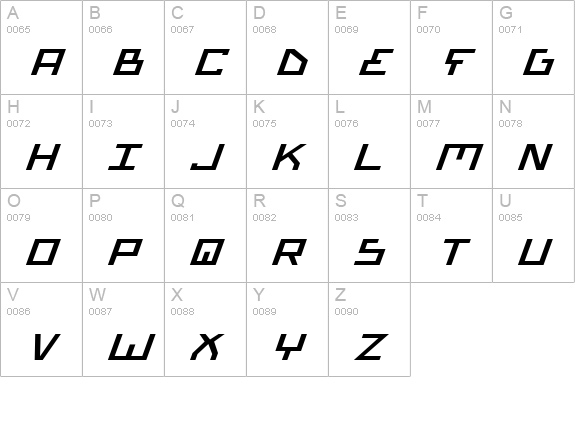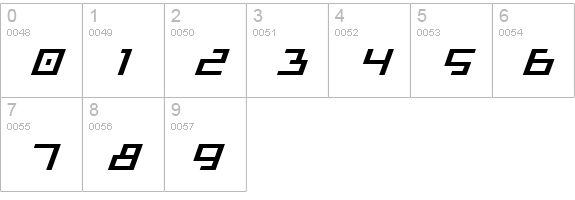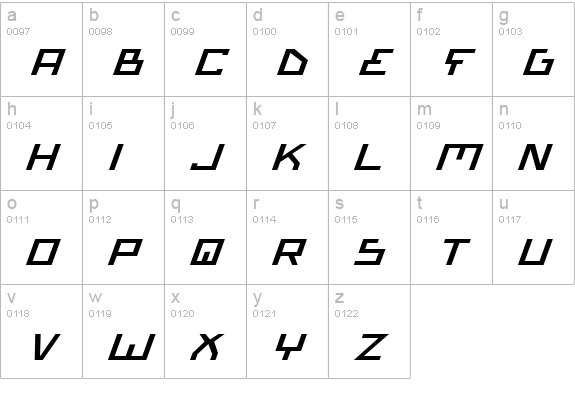
Bionic Type Expanded Italic Font Details
Bionic Type Expanded Italic is a distinctive, extended-width, italic variant in the Bionic typeface family \xE2\x80\x94 well suited to design and typography projects.
The Bionic Type Expanded Italic font embodies a perfect blend of futuristic aesthetics and sleek design, making it an ideal choice for projects that require a modern and dynamic touch. Its italicized form adds a sense of movement and sophistication to any text, enhancing the overall visual appeal. This font features clean lines and sharp angles that exude a sense of innovation and cutting-edge style. With its expanded width, Bionic Type Expanded Italic font commands attention and makes a bold statement in any design application. Whether used for headlines, titles, or branding materials, this font is sure to captivate and engage viewers. What's more, Bionic Type Expanded Italic font is available for free download at FontsMarket.com, making it easily accessible to designers and enthusiasts alike. With its combination of contemporary flair and versatility, this font is a must-have addition to any creative arsenal. Elevate your projects with the distinct charm and modern appeal of Bionic Type Expanded Italic font today!